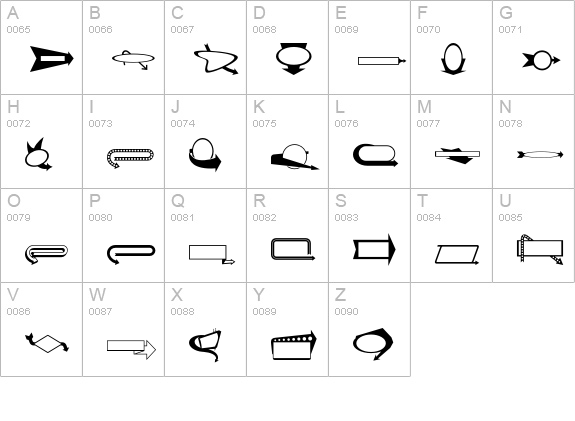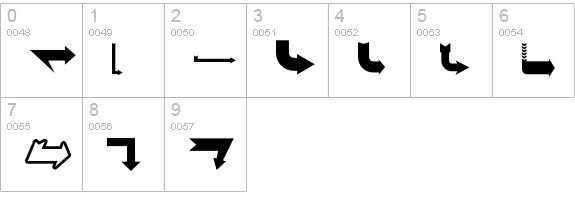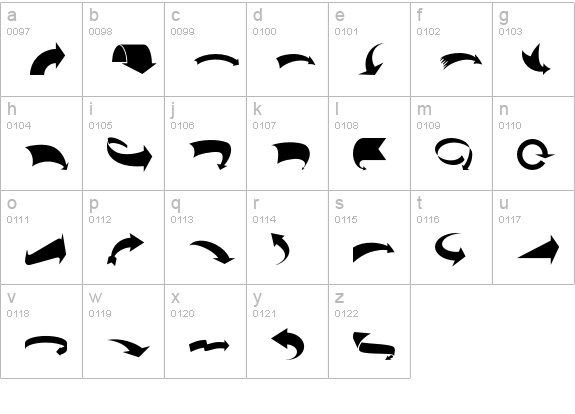
ArrowMatic Font Details
Introducing ArrowMatic font, a sleek and modern typeface designed to bring a touch of sophistication to your projects. With its clean lines and sharp angles, ArrowMatic exudes a sense of contemporary elegance that is perfect for a wide range of design applications. This versatile font is ideal for branding, logos, headlines, and much more. Its unique arrow-inspired design adds a dynamic element to your text, making it stand out and grab attention. Whether you're working on a website, poster, or packaging design, ArrowMatic is sure to make a bold statement. Best of all, ArrowMatic is completely free to download at FontsMarket.com. So why wait? Give your projects a fresh and modern look with this stylish and eye-catching font today!